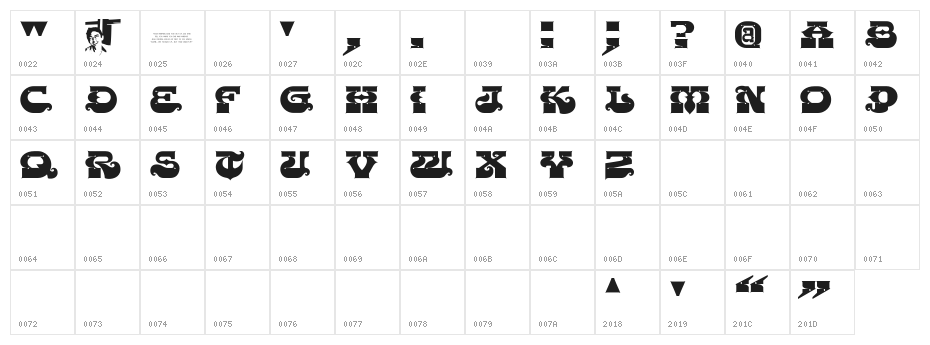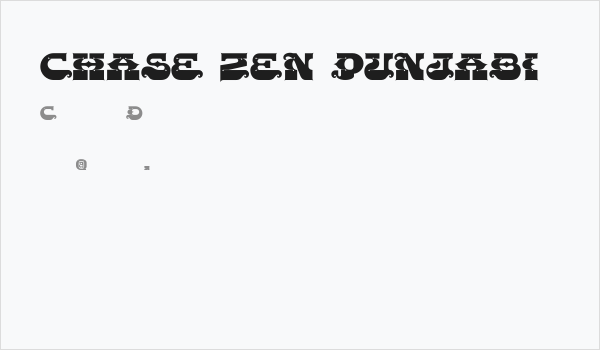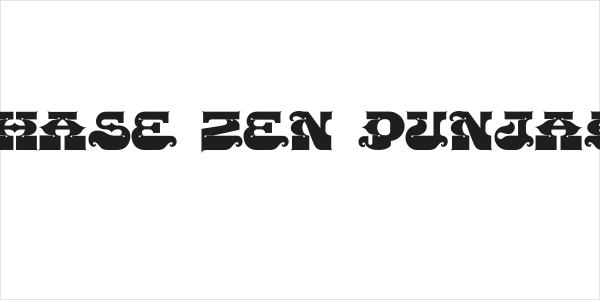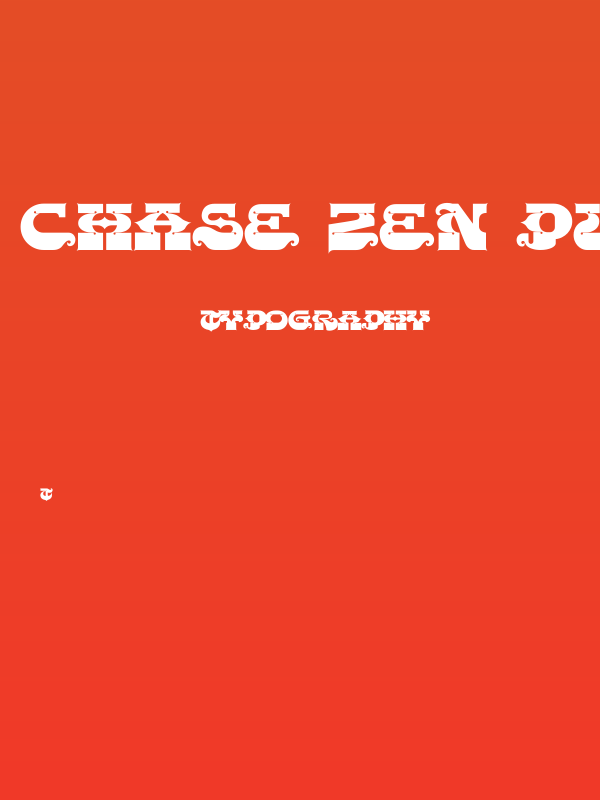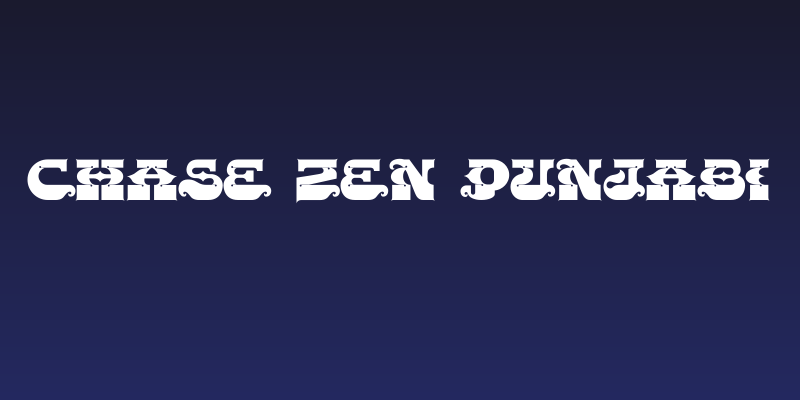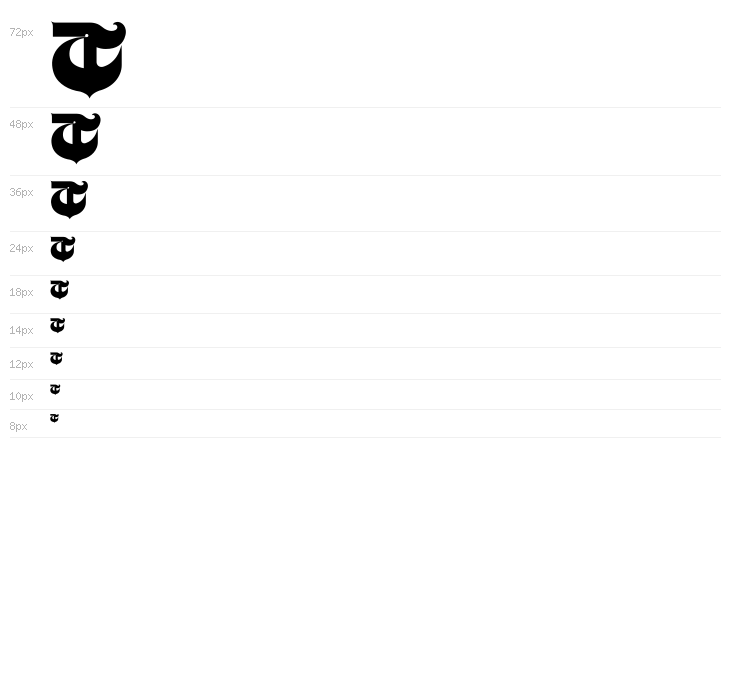
CHASE ZEN PUNJABI Font
CHASE ZEN PUNJABI Description
This font features a bold and decorative style with intricate detailing on each character. The uppercase letters are adorned with flourishes and embellishments that give it a unique, ornate appearance. The design is reminiscent of vintage or Western typography, with a strong emphasis on visual impact. The characters are wide and have a substantial presence, making them ideal for attention-grabbing headlines or titles. The font's distinct style is characterized by its boldness and decorative elements, which are consistent across all letters.